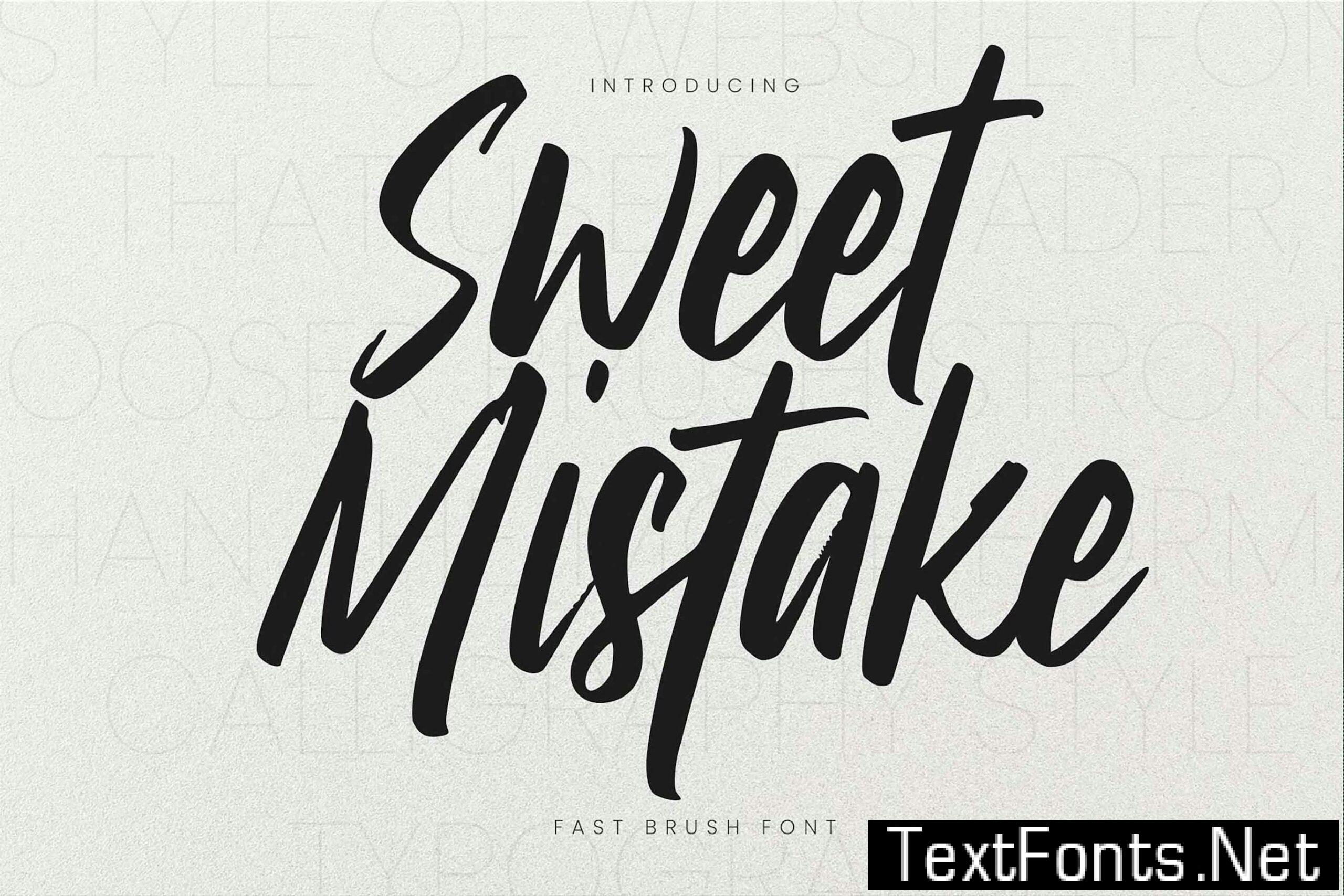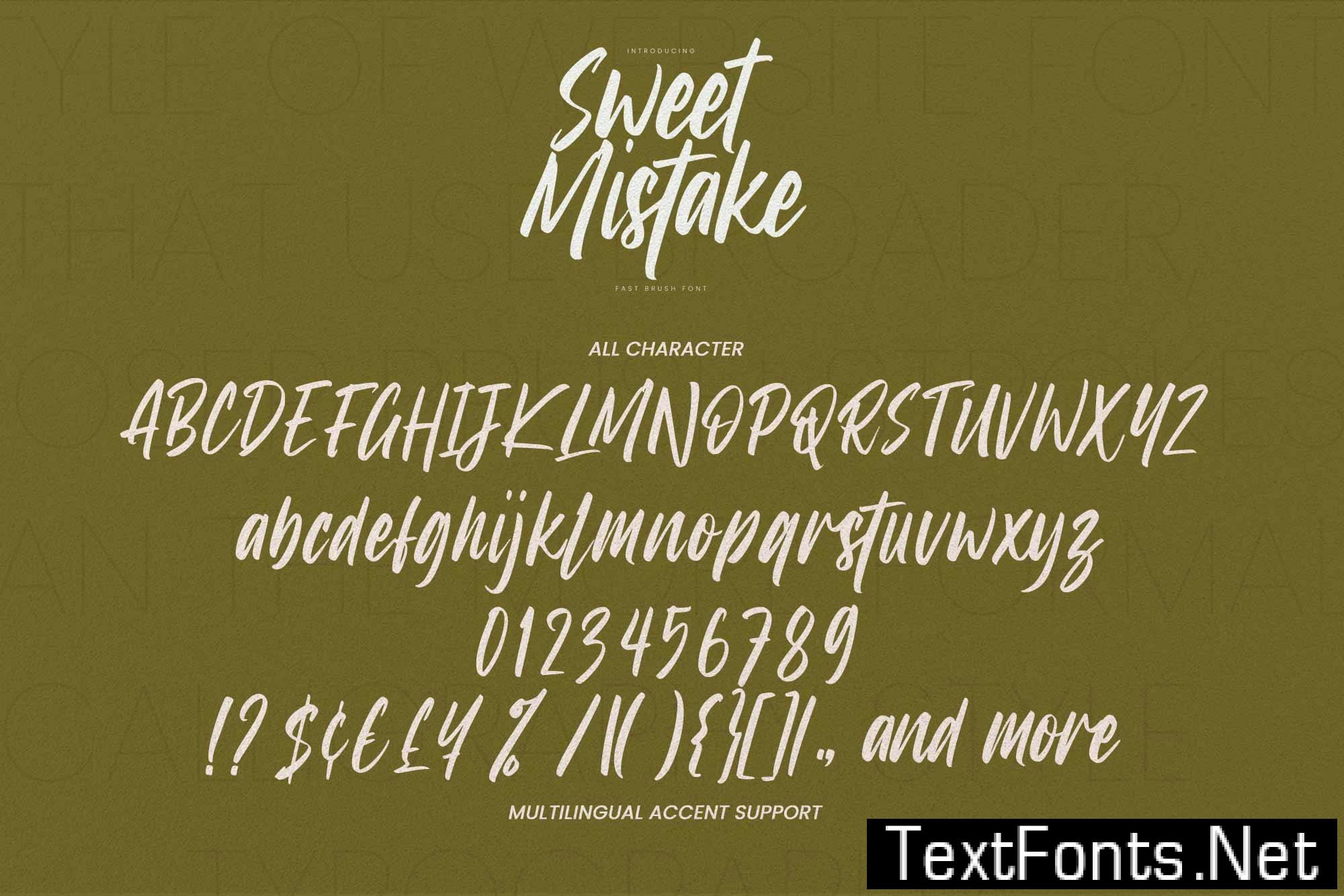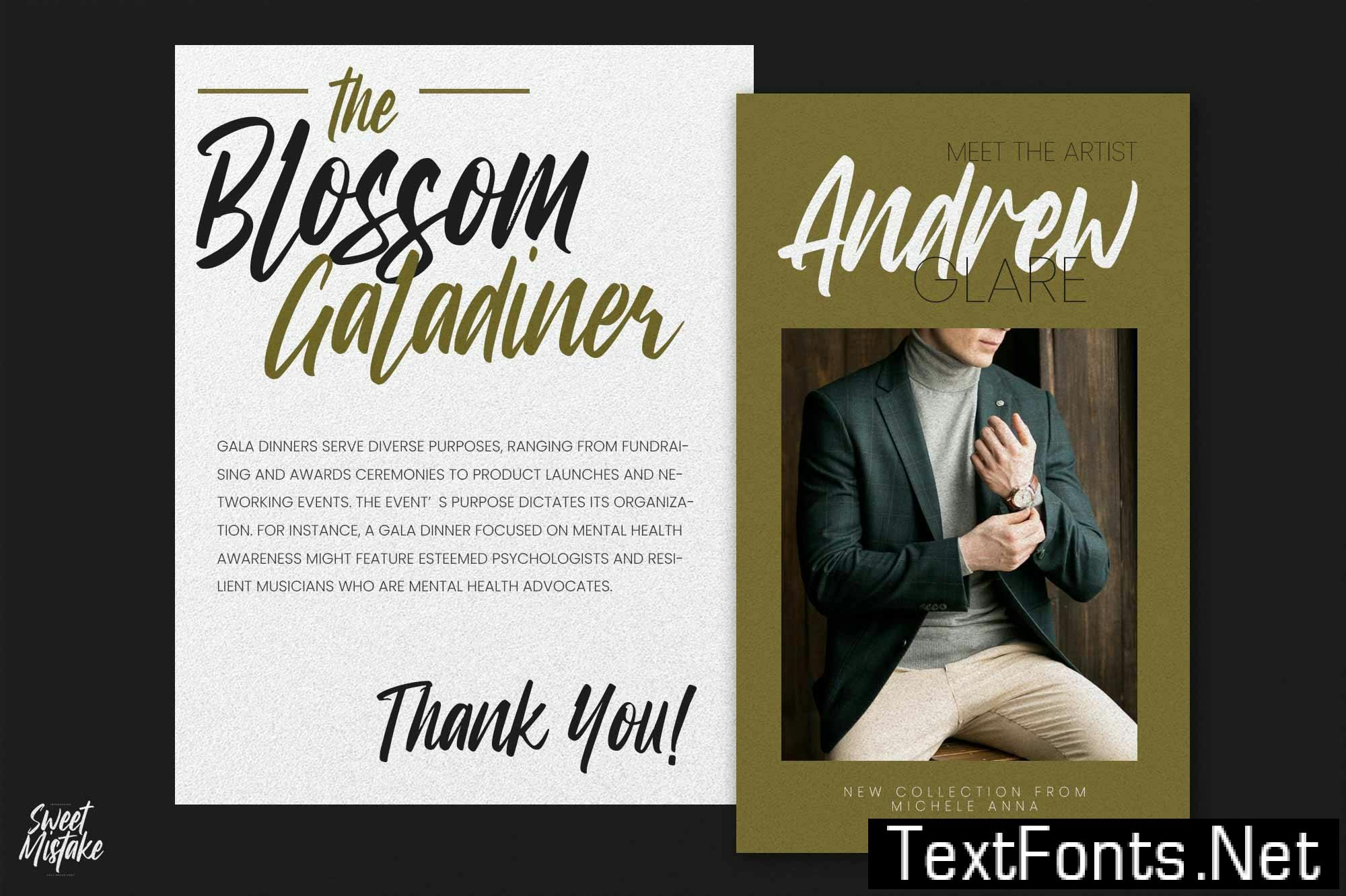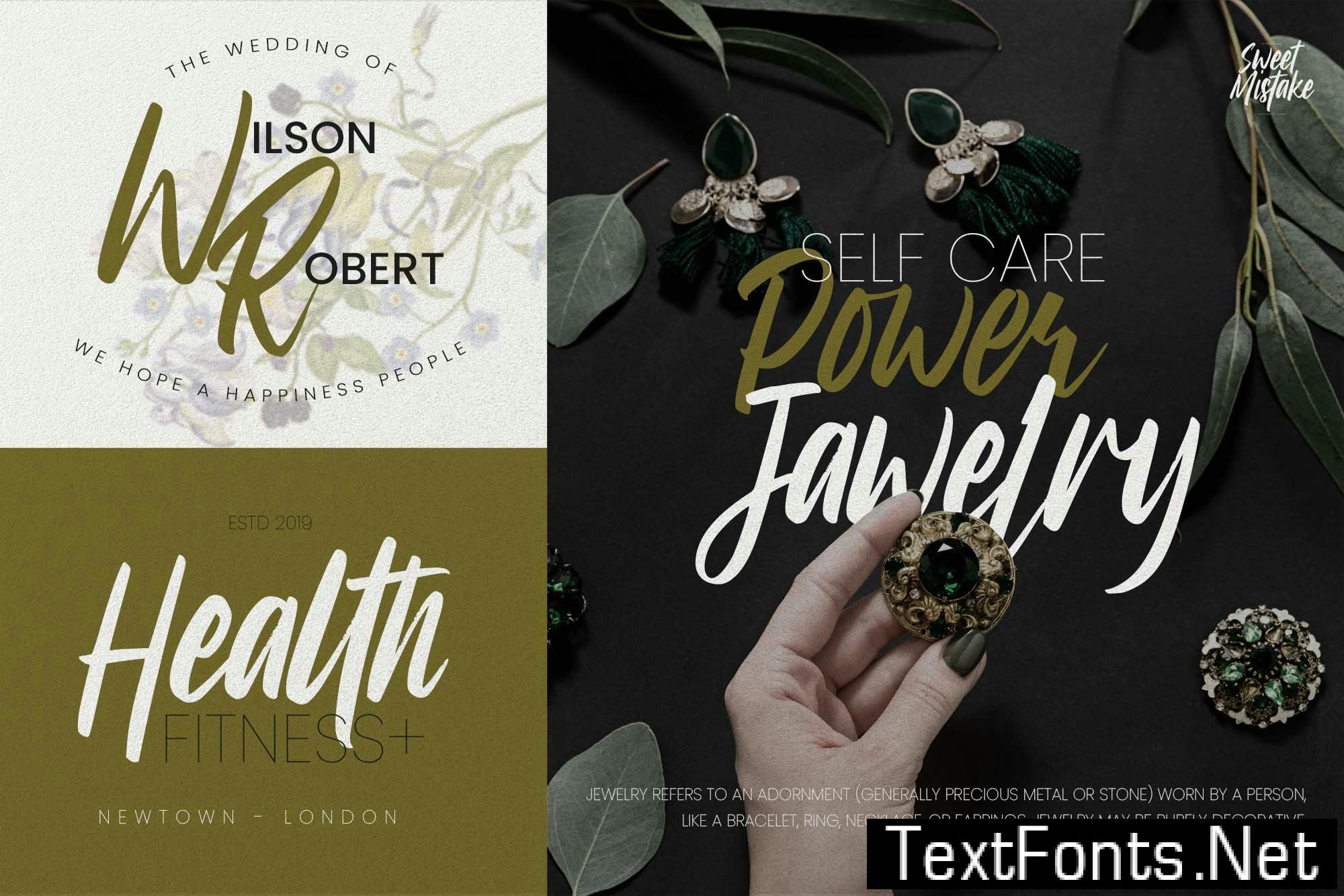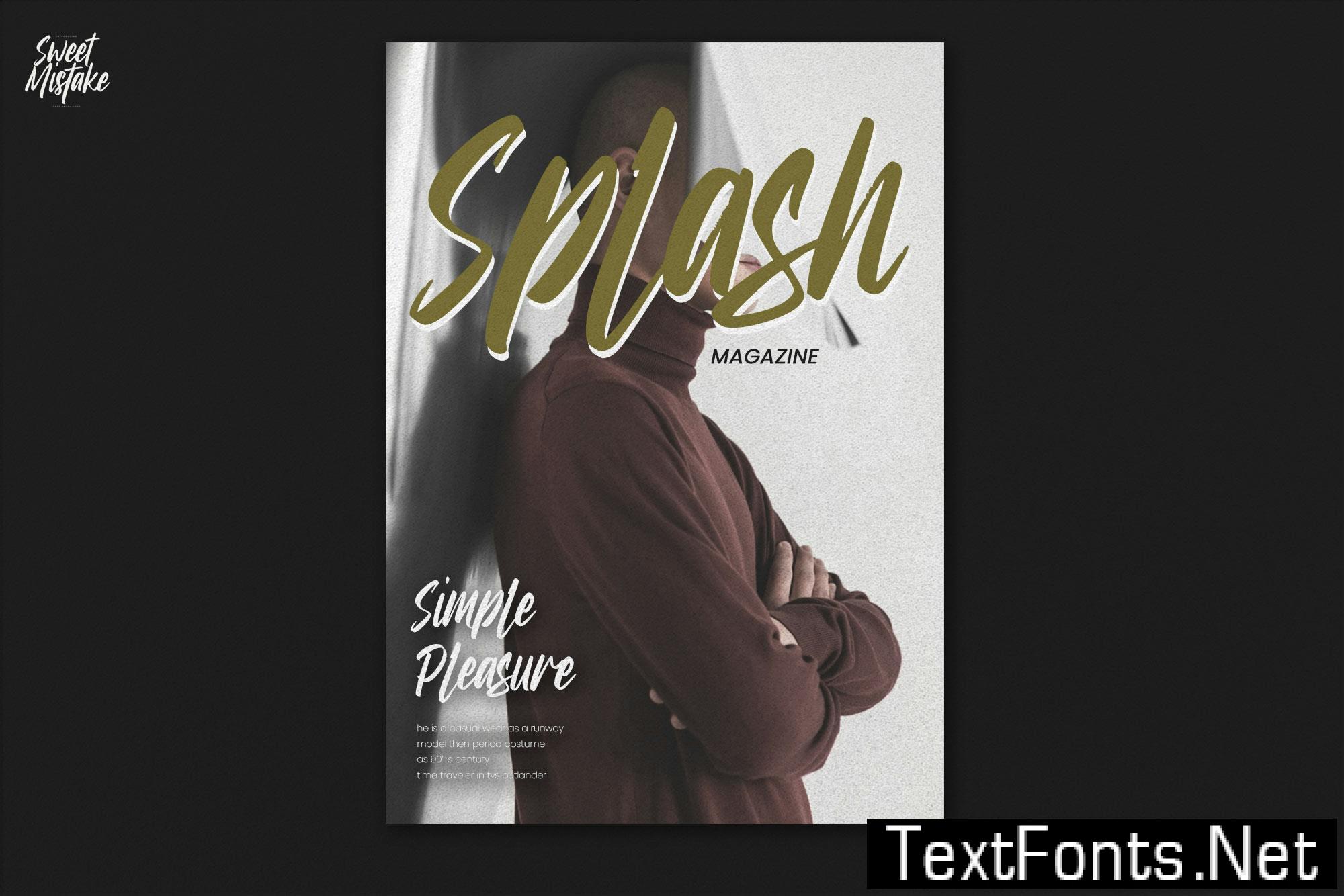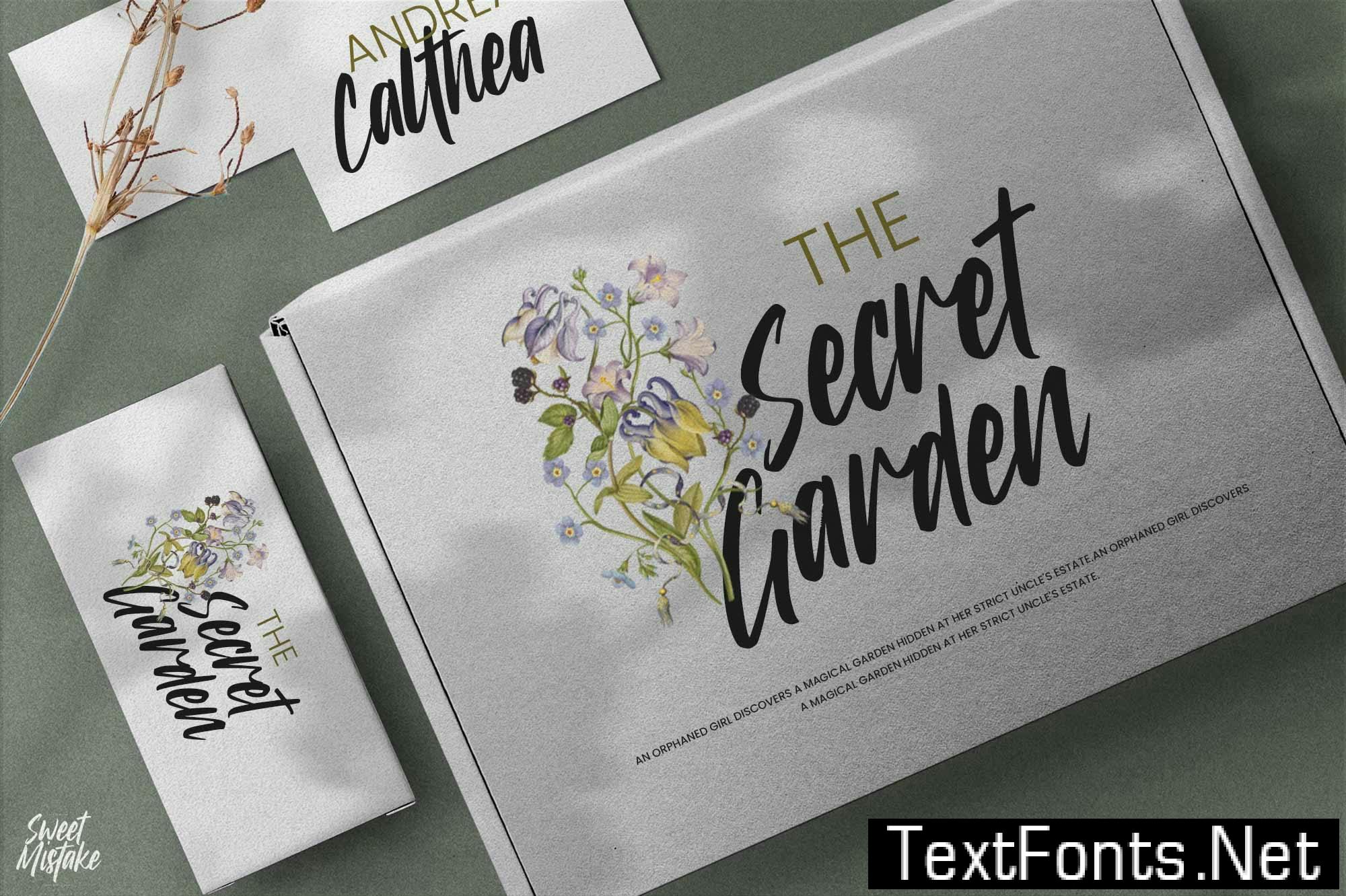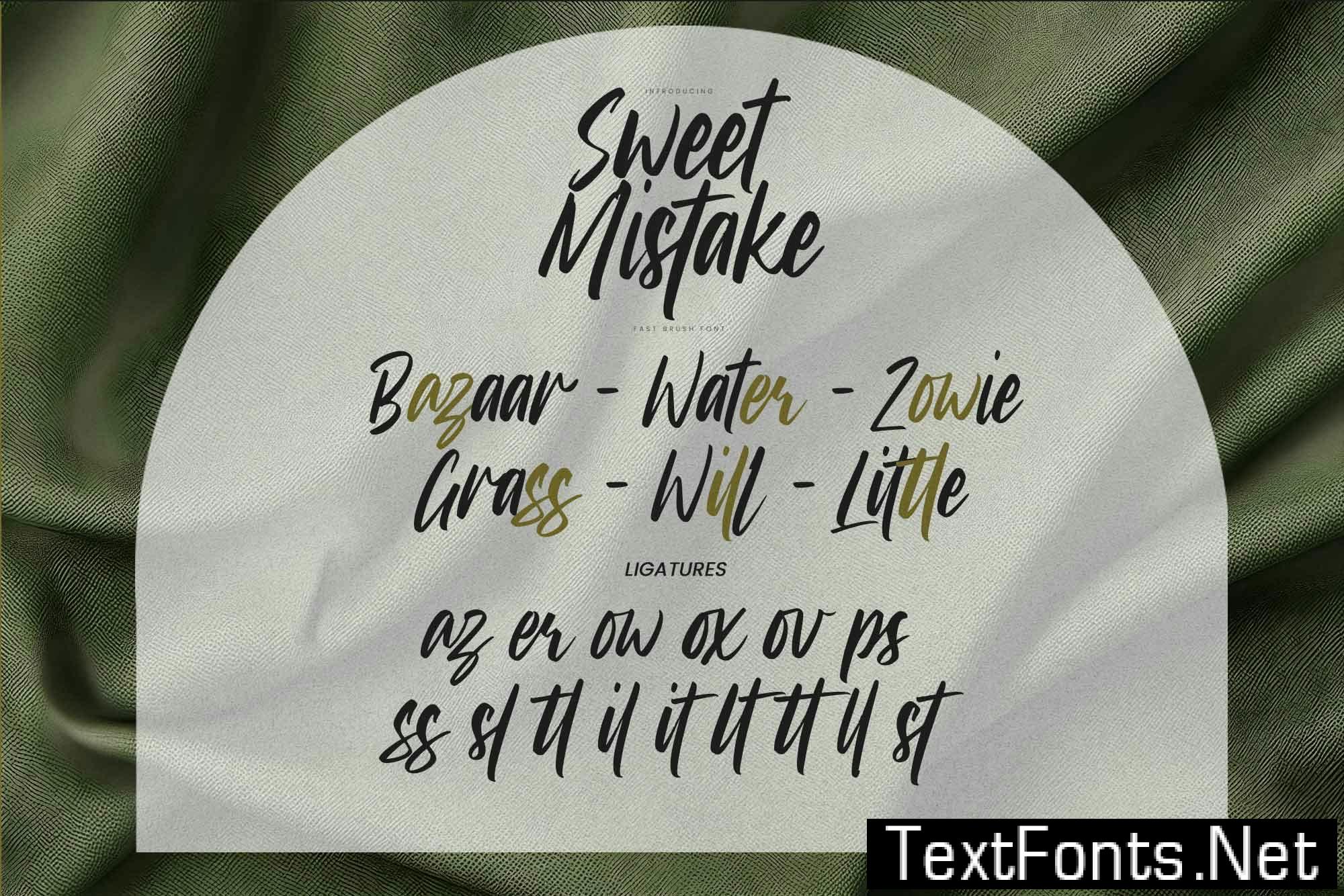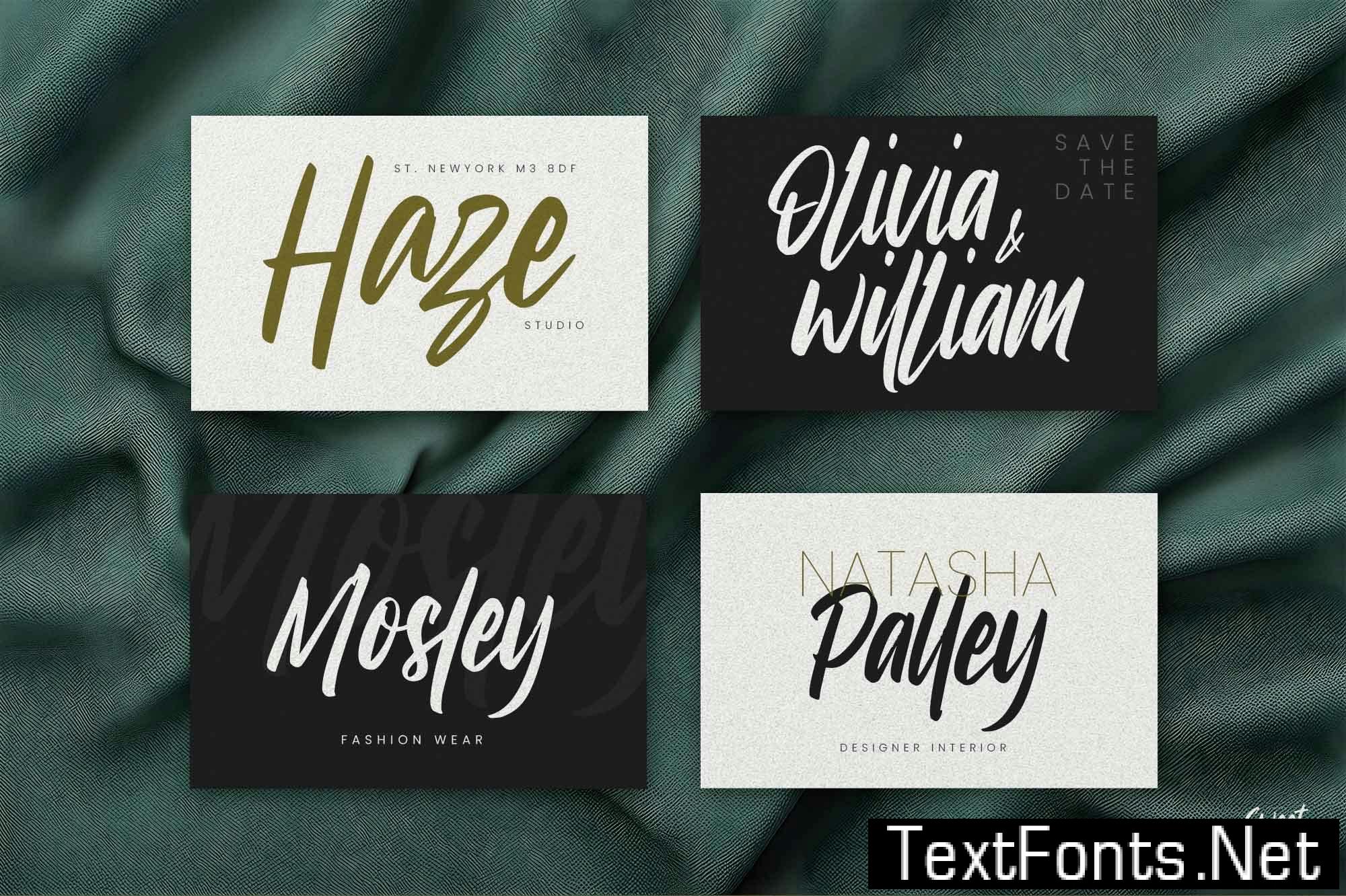
Hello Everyone, introduce our new product Font **Sweet Mistake** This a Fast Brush Font.This is a Textured Natural Style and classy style with a fast brush draw.
This font **Sweet Mistake** is great for your next creative project such as logos, printed quotes, invitations, cards, product packaging, headers, Logotype, Letterhead, Poster, Design this font is great for your creative projects such as watermark on photography, and perfect for logos & branding, invitation,advertisements,product designs, stationery, wedding designs,label ,product packaging, special events or anything that need handwritting taste.
That is has charming, authentic and relaxed characteristic more natural look to your text.
+ Standard glyphs
+ Multilingual
Fonts include multilingual support